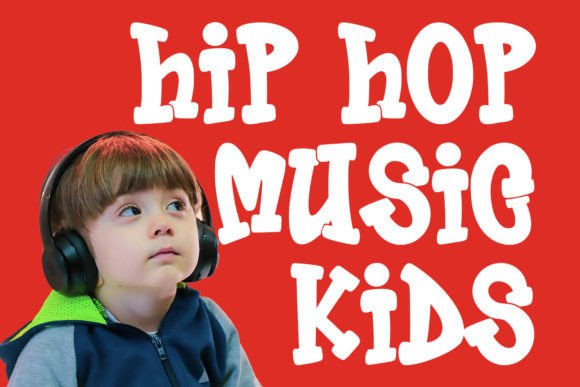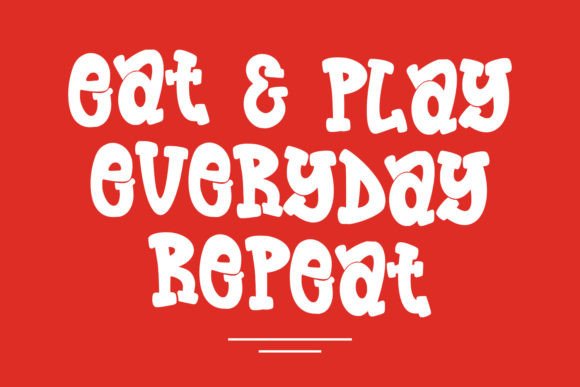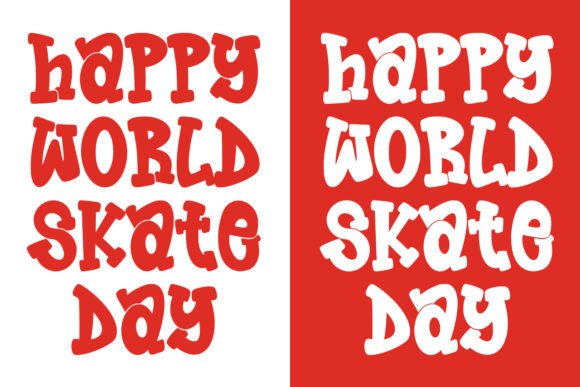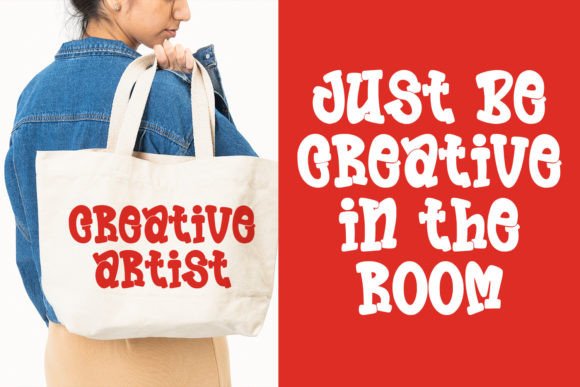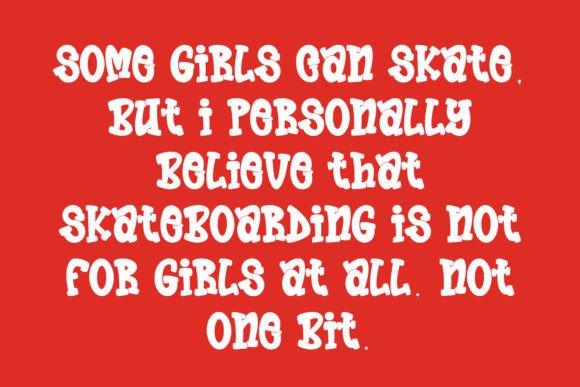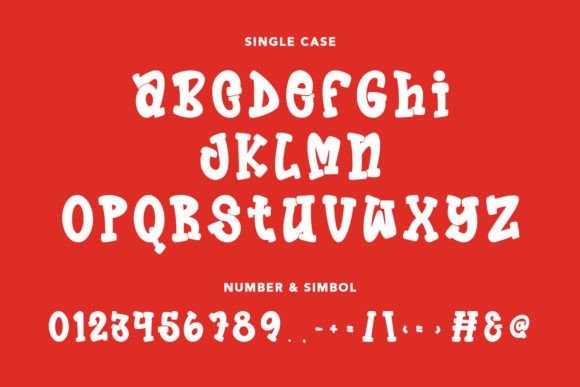
Introduction to Rib Cawmy Font
Have you ever found yourself stuck in a design rut, searching for the perfect font to elevate your creative project? The moment of inspiration strikes when you stumble upon a font that perfectly captures the essence of your idea, and that’s exactly what we’re here to talk about – the Rib Cawmy Font.
This playful display font is a game-changer for designers, offering a unique blend of bold strokes, fun characters, and ligatures that will add a touch of whimsy to any design. With over 100+ languages supported, Rib Cawmy Font is an invaluable resource for designers working on international projects, requiring a high-quality font that’s easy to use and download.
Key Features of Rib Cawmy Font
- High-quality design resource ideal for creative projects and presentations
- Features a unique, playful design with a transparent background, allowing for flexibility in design
- Comes in a range of font sizes, including small caps and extended characters
- Includes a wide range of characters, including uppercase and lowercase letters, numbers, and punctuation marks
- Perfect for designers looking for a fun and creative font to add a unique touch to their design projects
Honest Review: Rib Cawmy Font
One of the standout features of this font is its high quality and versatility. It’s perfect for a wide range of creative projects, from logos to advertisements and even digital art. The transparent background is also a plus, making it easy to integrate into various design elements.
Here are some of the things that work well with the Rib Cawmy Font:
- Unique and eye-catching design
- High quality and crisp text rendering
- Transparency feature for seamless integration
- May not be suitable for formal or traditional designs
- Limited font sizes and styles
- Not as customizable as some other fonts
Overall, I’m impressed with the Rib Cawmy Font and I’d recommend it to designers looking for a high-quality, creative solution for their next project. While it may not be perfect, its strengths far outweigh its limitations.
Use the Rib Cawmy Font to add a touch of elegance and sophistication to your designs. Combine it with a transparent background to create a unique and eye-catching effect. You can also experiment with different font sizes and colors to create a cohesive look.